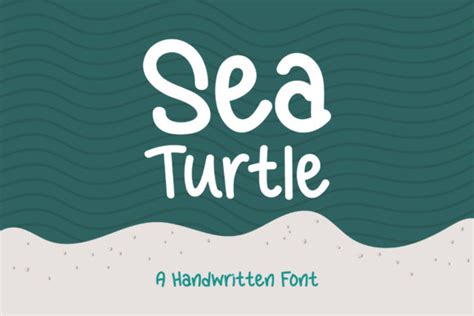
Sea Turtle Font . Every font is free to download! Sea & turtle is a fancy type font that can be used on any device.
Sea Turtle Font - Web download and install the sea & turtle font by qkila. 110,268 downloads (2 yesterday) 2 comments free for personal. Every font is free to download! Click to find the best 4 free fonts in the sea turtle style. For any commercial use you will need to purchase a license.
Sea Turtle Font - Web download free sea turtle font, view its character. Sea & turtle is a fancy type font that can be used on any device. Web looking for sea turtle fonts? 110,268 downloads (2 yesterday) 2 comments free for personal. Web sea turtle by bailey gdfonts.
Sea Turtle Font - Web download free sea turtle font, view its character. Web sea & turtle is a free font for personal use created by qkila. 14,445 downloads free for personal use. Every font is free to download! For any commercial use you will need to purchase a license.
Sea Turtle Font - For any commercial use you will need to purchase a license. Sea & turtle is a fancy type font that can be used on any device. 110,268 downloads (2 yesterday) 2 comments free for personal. 14,445 downloads free for personal use. Web looking for sea turtle fonts?
Sea Turtle Font - Web sea turtle by bailey gdfonts. Click to find the best 4 free fonts in the sea turtle style. For any commercial use you will need to purchase a license. Web sea & turtle is a free font for personal use created by qkila. Web download free sea turtle font, view its character.
Sea Turtle Font - Web this font is free for personal use. 14,445 downloads free for personal use. 110,268 downloads (2 yesterday) 2 comments free for personal. Web download sea turtle font for free! Sea & turtle is a fancy type font that can be used on any device.
Sea Turtle Font - 14,445 downloads free for personal use. Every font is free to download! Web looking for sea turtle fonts? Sea & turtle is a fancy type font that can be used on any device. Web download sea turtle font for free!
Sea Turtle Font - Web download sea turtle font for free! Web download and install the sea & turtle font by qkila. 110,268 downloads (2 yesterday) 2 comments free for personal. Web sea turtle by bailey gdfonts. Click to find the best 4 free fonts in the sea turtle style.
Sea Turtle Font - Web looking for sea turtle fonts? 110,268 downloads (2 yesterday) 2 comments free for personal. Web sea & turtle is a free font for personal use created by qkila. 14,445 downloads free for personal use. For any commercial use you will need to purchase a license.
Sea Turtle Font - The sea & turtle font has been downloaded 4,586 times. Sea & turtle is a fancy type font that can be used on any device. Web download sea turtle font for free! Every font is free to download! 14,445 downloads free for personal use.
Sea Turtle Font - For any commercial use you will need to purchase a license. Web sea turtle by bailey gdfonts. Web looking for sea turtle fonts? Click to find the best 4 free fonts in the sea turtle style. The sea & turtle font has been downloaded 4,586 times.
Sea Turtle Font - The sea & turtle font has been downloaded 4,586 times. 110,268 downloads (2 yesterday) 2 comments free for personal. For any commercial use you will need to purchase a license. Web sea turtle by bailey gdfonts. Sea & turtle is a fancy type font that can be used on any device.
Sea Turtle Font - Web download sea turtle font for free! Web this font is free for personal use. 14,445 downloads free for personal use. Web download free sea turtle font, view its character. Click to find the best 4 free fonts in the sea turtle style.
Sea Turtle Font - Web download free sea turtle font, view its character. For any commercial use you will need to purchase a license. 14,445 downloads free for personal use. The sea & turtle font has been downloaded 4,586 times. 110,268 downloads (2 yesterday) 2 comments free for personal.